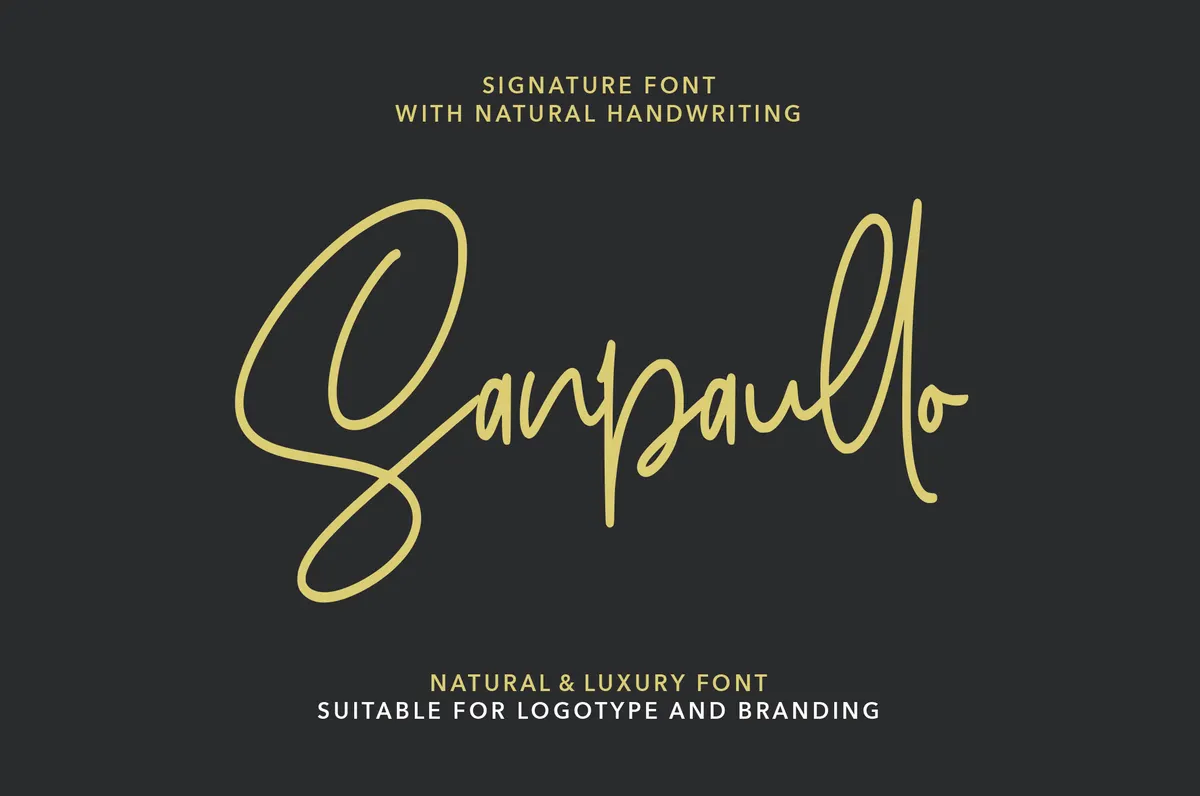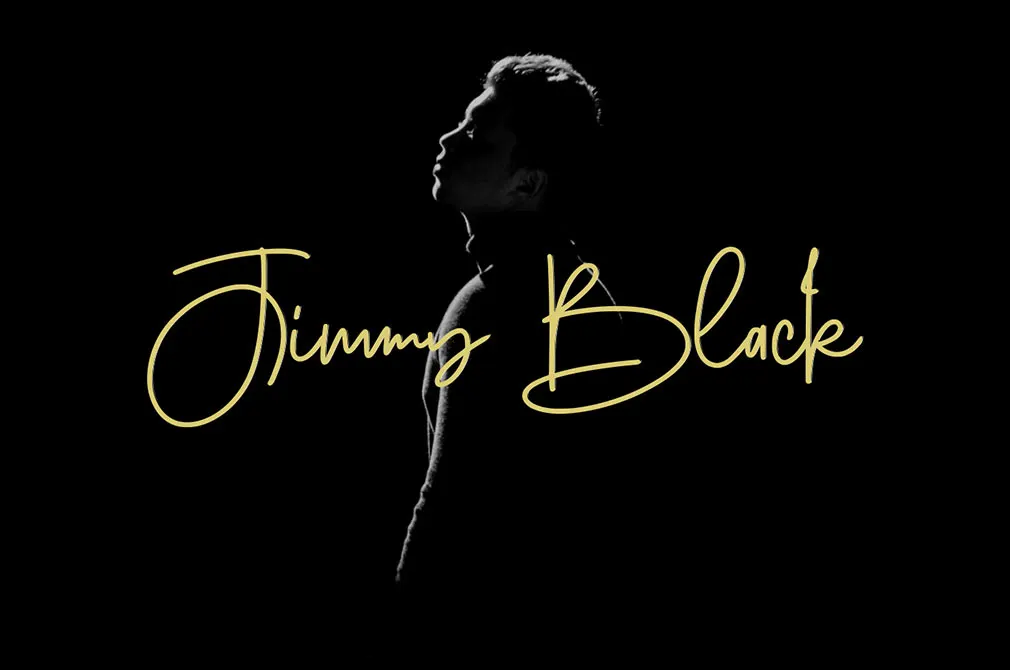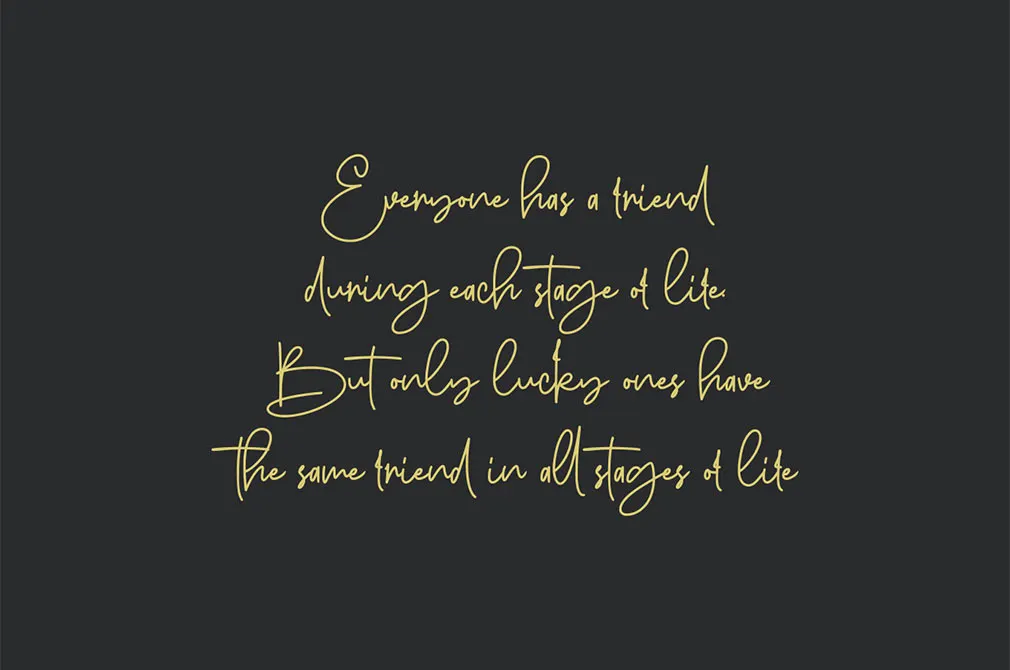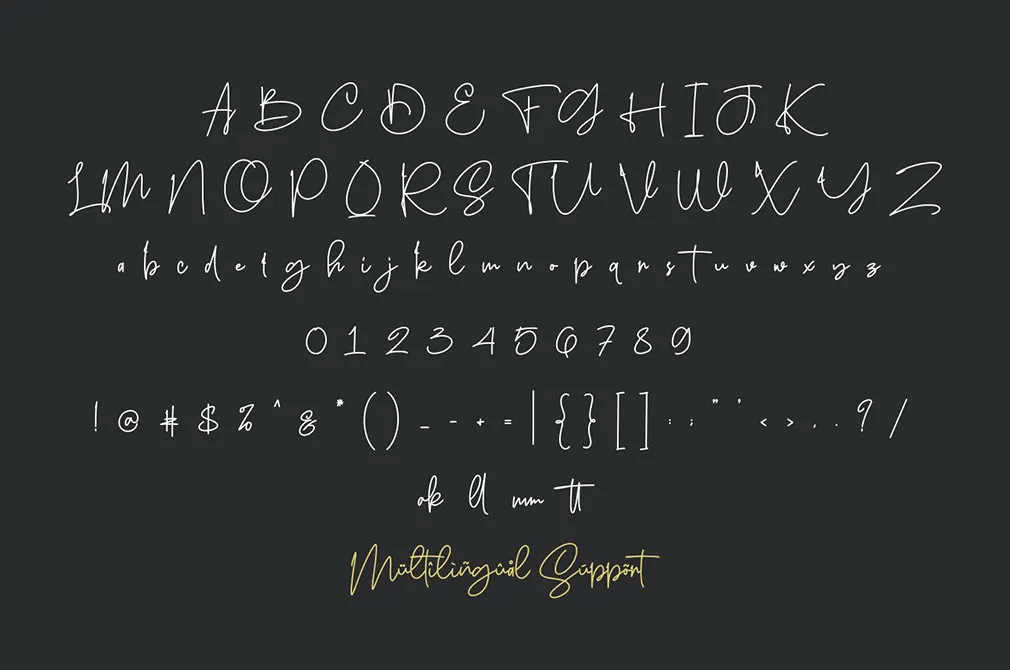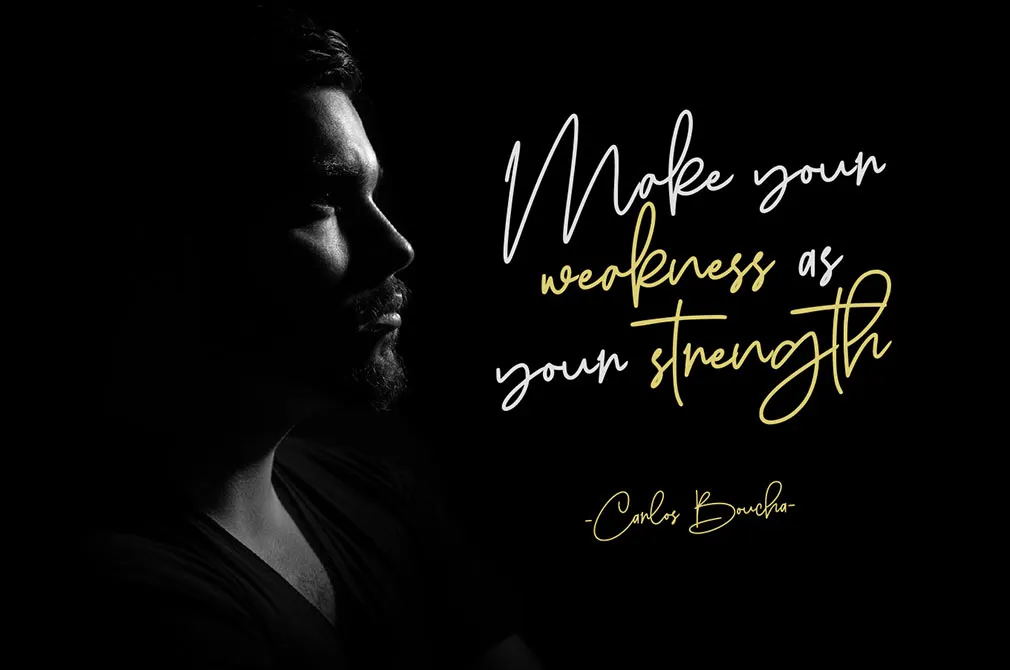
Sanpaullo Signature Font
The opulence of a handwritten font coming along with a light touch of a script. Imitating the ink lettering, made with a feather, this is a great variant for adding a sophisticated touch.
Sanpaullo is a signature font, perfect for logos, invitations, stationery and wedding designs, social media posts, advertisements, packaging, and literally anything! It comes with a full set of uppercase and lowercase letters, multilingual symbols, numerals, and punctuation. If you're as tempted by scripts as we are, you may find this selection of 49 hand-lettering fonts very fascinating and handy.